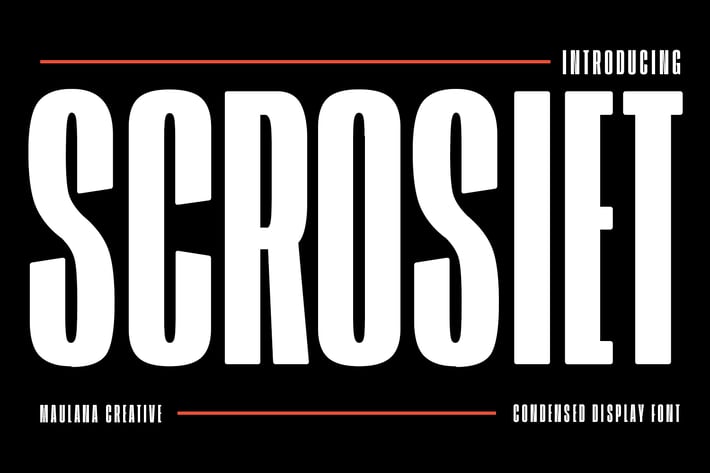
Scrosiet Sans Serif Display Font
Scorsiet is a modern condensed font. With bold low contrast stroke, fun character with a bit of ligatures and alternates. To give you an extra creative work. Scorsiet font support multilingual more than 100+ language. This font is good for logo design, Social media, Movie Titles, Books Titles, a short text even a long text letter and good for your secondary text font with sans or serif. Make a stunning work with Scorsiet font.